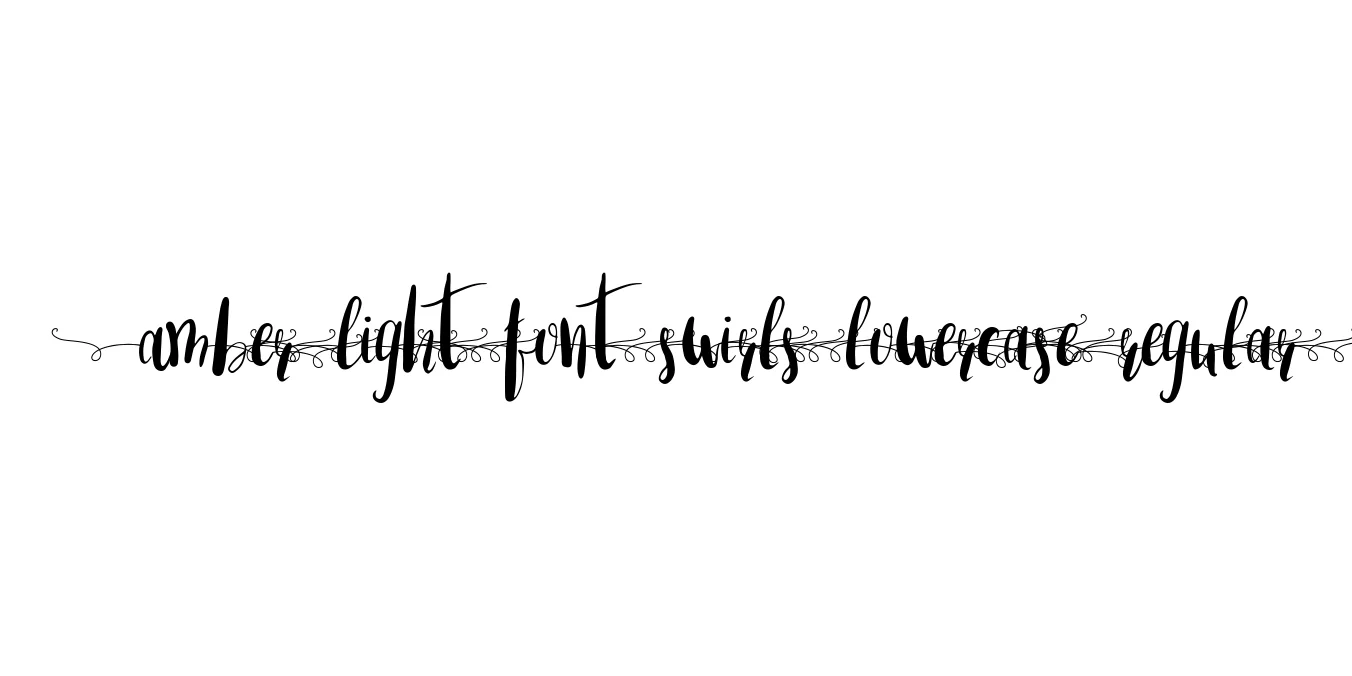
Amber Light Font swirls lowercase Regular
Designed by Artimasa Studio
Amber Light is a stunning, hand-drawn brush script font created by Artimasa Studio. Characterized by its whimsical swirls and elegant, flowing letterforms, this font captures a sense of modern calligraphy mixed with artistic freedom. The 'swirls lowercase Regular' version specifically emphasizes the decorative flourishes that make it ideal for creative projects needing a touch of feminine charm and organic movement.
Released as a versatile display face, Amber Light has gained popularity for its ability to transform simple text into a piece of art. Its natural texture and rhythmic strokes evoke a handmade feel, making it a favorite for designers working on branding and invitation suites. Whether used for a logo or a social media graphic, it brings a distinctive, breezy personality to every design.
Amber Light Font swirls lowercase Regular Best Uses
Perfect for invitations, save-the-dates, and place cards due to its romantic flourishes.
Ideal for lifestyle brands, boutiques, and beauty products seeking a personal touch.
Great for creating eye-catching quotes, stories, and Pinterest graphics.
Adds a premium, artisanal feel to product boxes, labels, and hangtags.